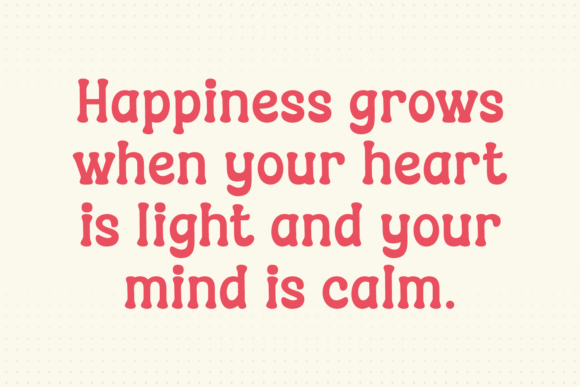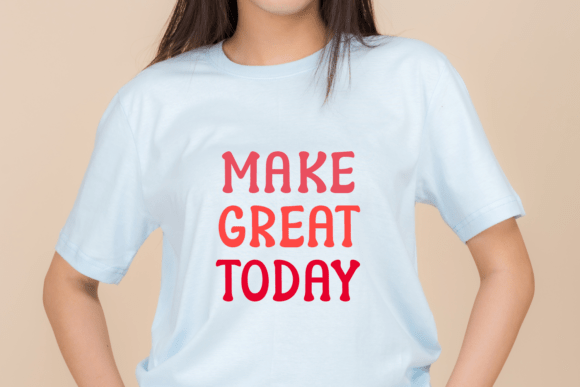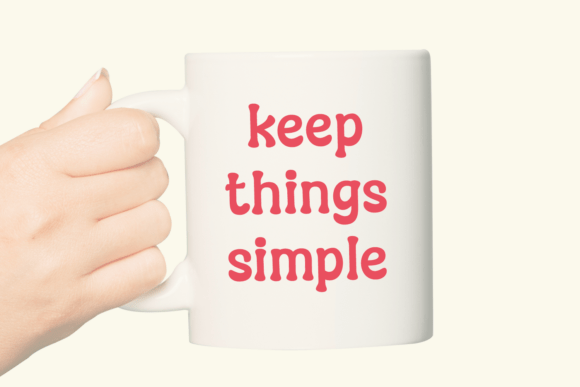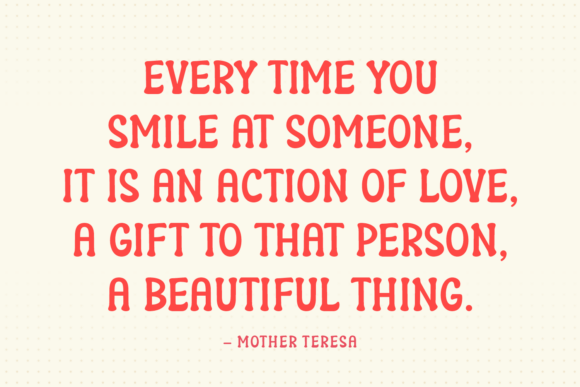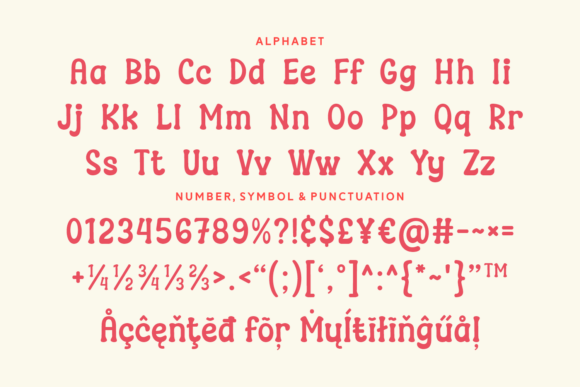
Introduction to Middle Blocker Font
Command attention with Middle Blocker, a stunning display font that balances bold, heavy strokes with a soft, friendly silhouette.
Featuring unique โpinchedโ waists and rounded terminals, this typeface feels both solid and approachable It is the definitive choice for designers who want a โheroโ font that radiates positivity and confidence without being overly aggressive.
Key Features of Middle Blocker Font